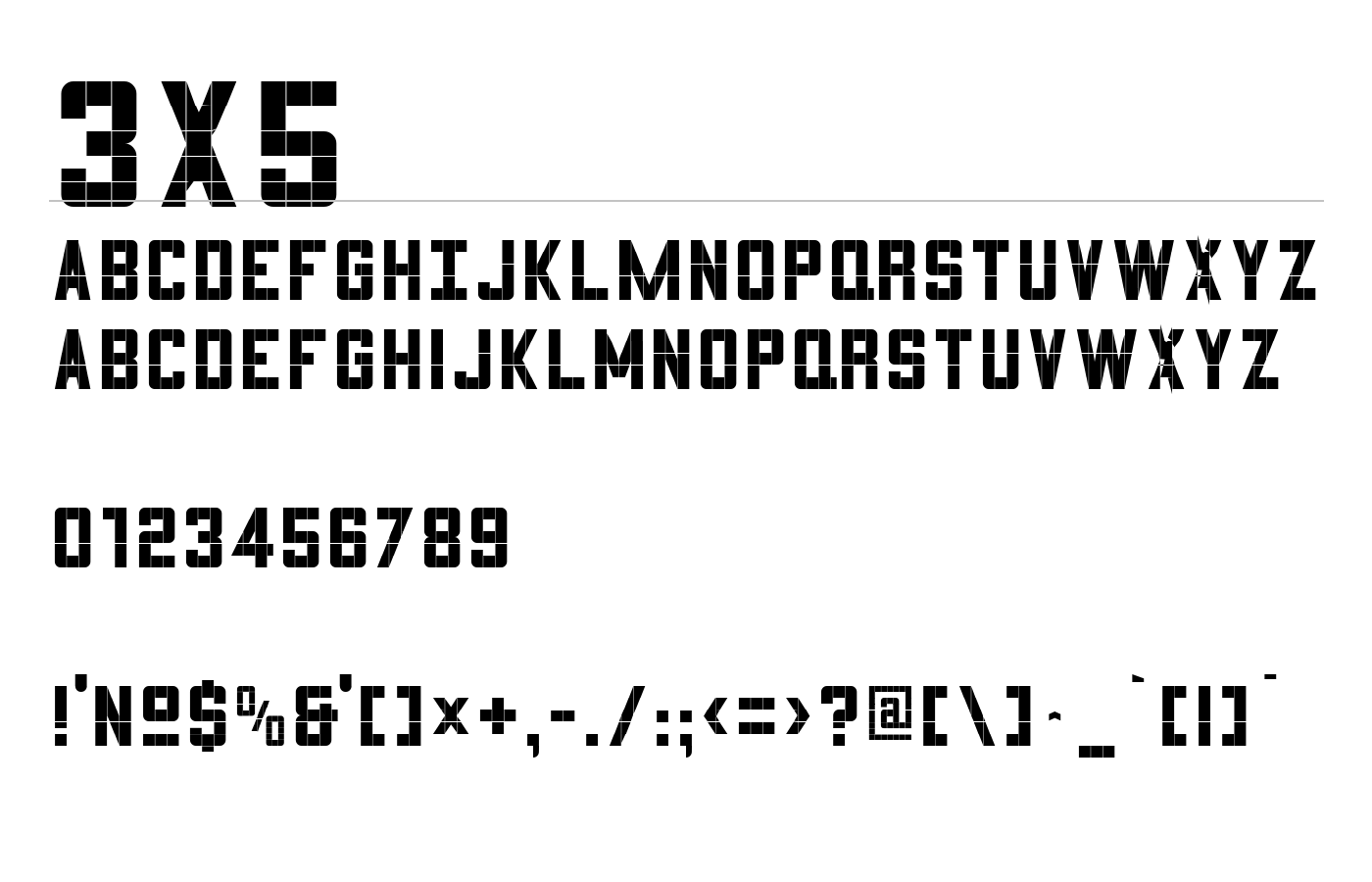
3x5 Font is a bold, condensed sans serif typeface with a strong industrial and digital aesthetic. Its sharp, geometric letterforms feature distinctive cut-out sections that create a futuristic, stencil-like effect, making it ideal for eye-catching headlines, posters, and branding needing a modern, tech-inspired vibe. This font works well in designs that require a bold, structured appearance with a unique, mechanical personality.
3x5 Font